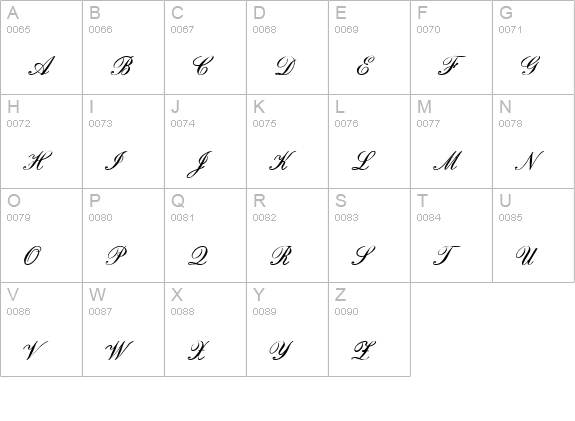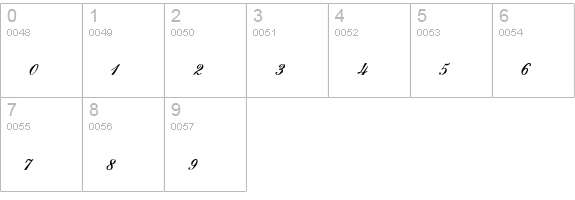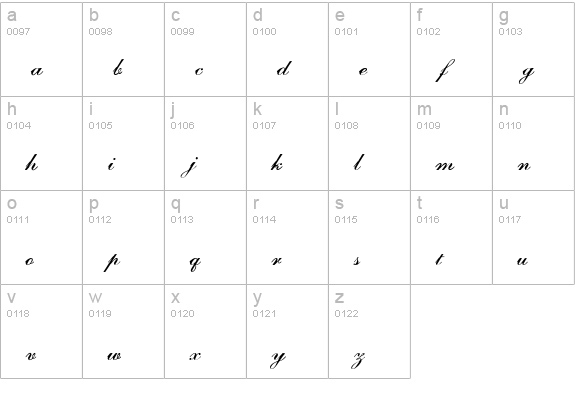
Typo Script HPLHS font is a beautifully crafted typeface that combines elegance and versatility. Its unique design captures the essence of handwriting, making it perfect for a wide range of creative projects. Whether you're designing a logo, creating a poster, or crafting a personalized invitation, Typo Script HPLHS font will add a touch of sophistication to your work. This font features a balanced and harmonious letterform, with smooth curves and clean lines that create a sense of fluidity and grace. Each character is carefully crafted to ensure legibility, making it easy to read even at smaller sizes. The attention to detail is evident in every stroke, giving the font a polished and professional look. One of the best things about Typo Script HPLHS font is that it is free to download. You can get your hands on this stunning typeface at FontsMarket.com, where it is available for immediate download. This means that you can start using Typo Script HPLHS font in your design projects right away, without having to worry about any licensing fees or restrictions. Whether you're a professional designer or a beginner, Typo Script HPLHS font is a valuable addition to your font library. Its versatility and timeless appeal make it suitable for a wide range of design applications, from branding and packaging to editorial and web design. Don't miss out on the opportunity to enhance your designs with the elegance and sophistication of Typo Script HPLHS font. Download it for free at FontsMarket.com and elevate your creative projects to a whole new level.